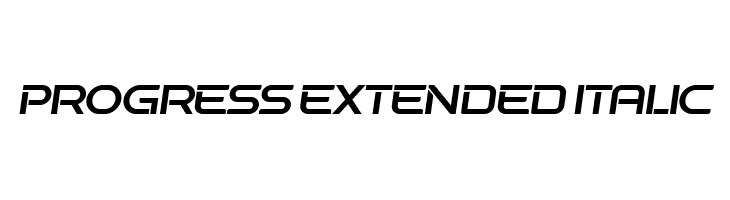
A modern, italicized font with extended characters and a tech-inspired design.
A bold, handwritten font with a playful and dynamic style.
A bold, flowing script font with elegant curves and high legibility.
A futuristic italic font with a gradient line effect, conveying speed and modernity.
A bold, italic font with a dynamic and modern style.
A bold, playful font with rounded edges and a bubbly appearance.
A lively, handwritten script font with bold strokes and fluid connections.
A bold, geometric font with angular shapes and a modern style.
A vintage, decorative font with characters in stamp-like borders.
A geometric, grid-based font with a modern and technical aesthetic.